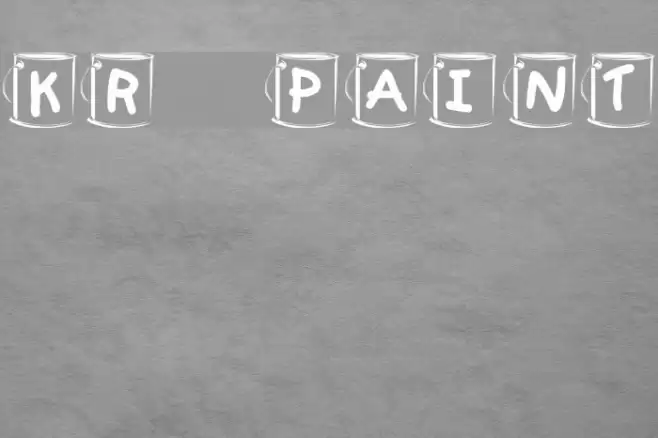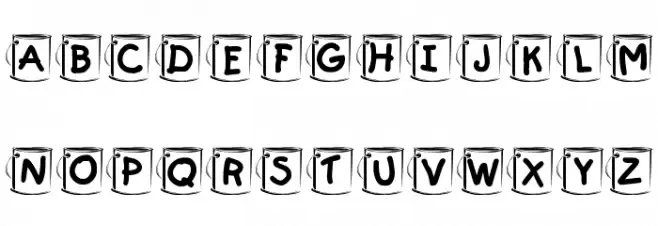
KR Paint Font
KR Paint Description
This playful and artistic font features letters enclosed in paint cans, giving it a unique and creative appearance. The characters are bold and slightly irregular, mimicking the look of hand-painted letters. The design is both whimsical and eye-catching, making it ideal for projects that require a fun and informal touch. The font maintains a consistent style across uppercase and lowercase letters, as well as numbers and special characters, all of which are presented within the paint can motif. This adds a cohesive and thematic element to the overall design.
A whimsical font with letters inside paint cans, perfect for creative projects from Uncategorized fonts.
- Proposed Projects: Ideal for art-themed posters, children's book covers, playful branding, and DIY project labels.